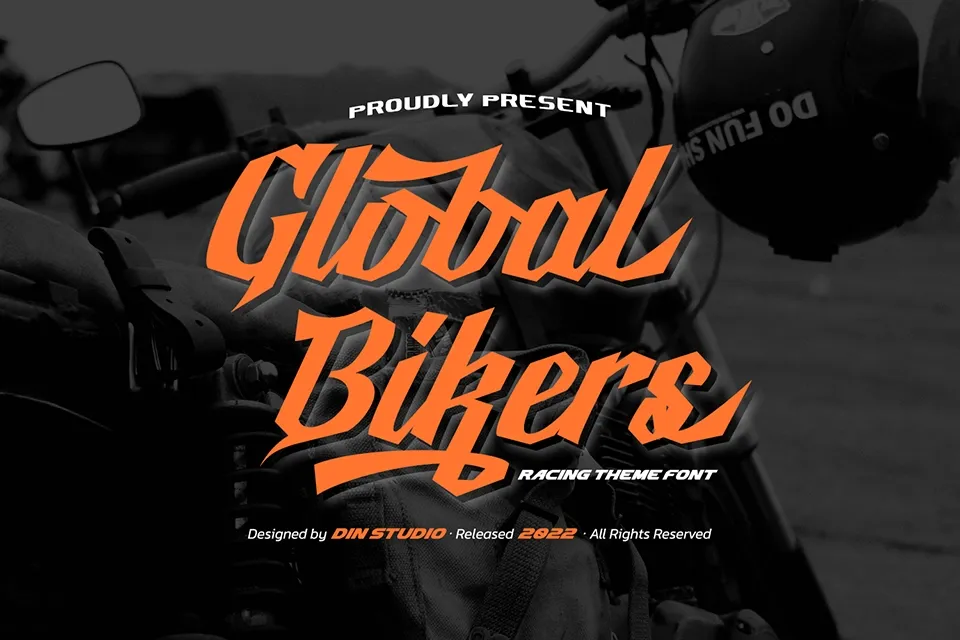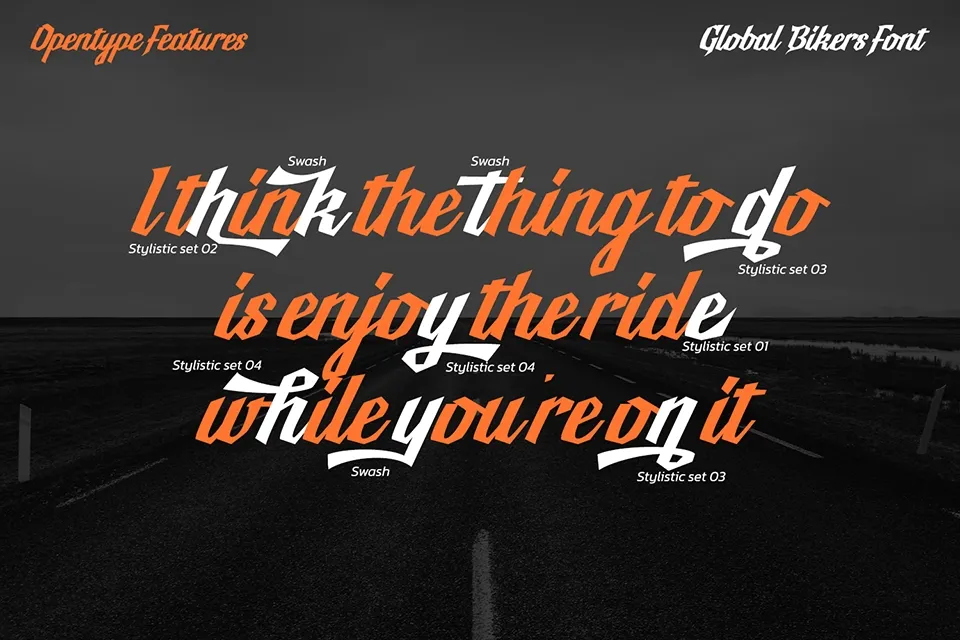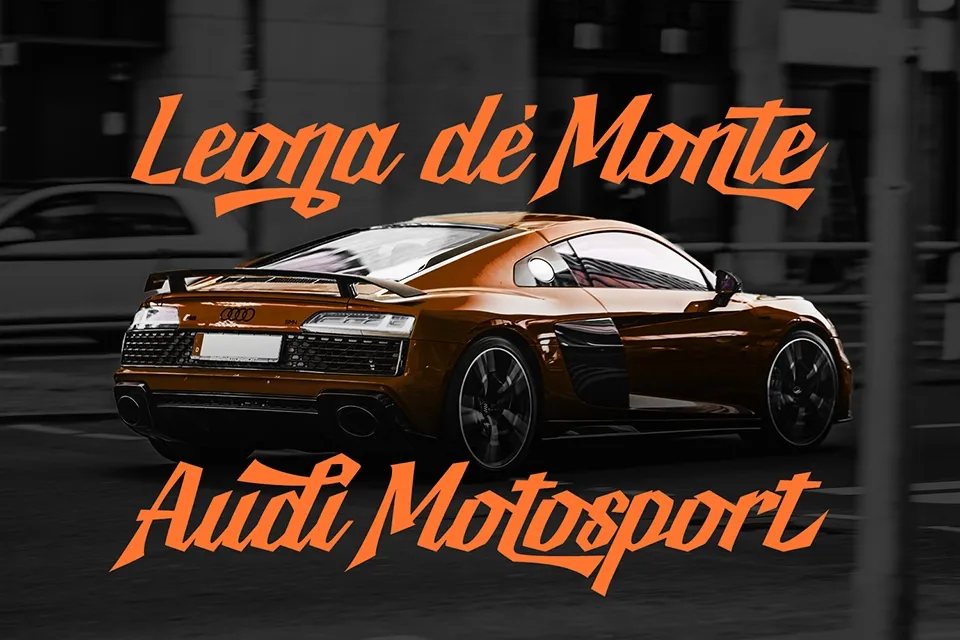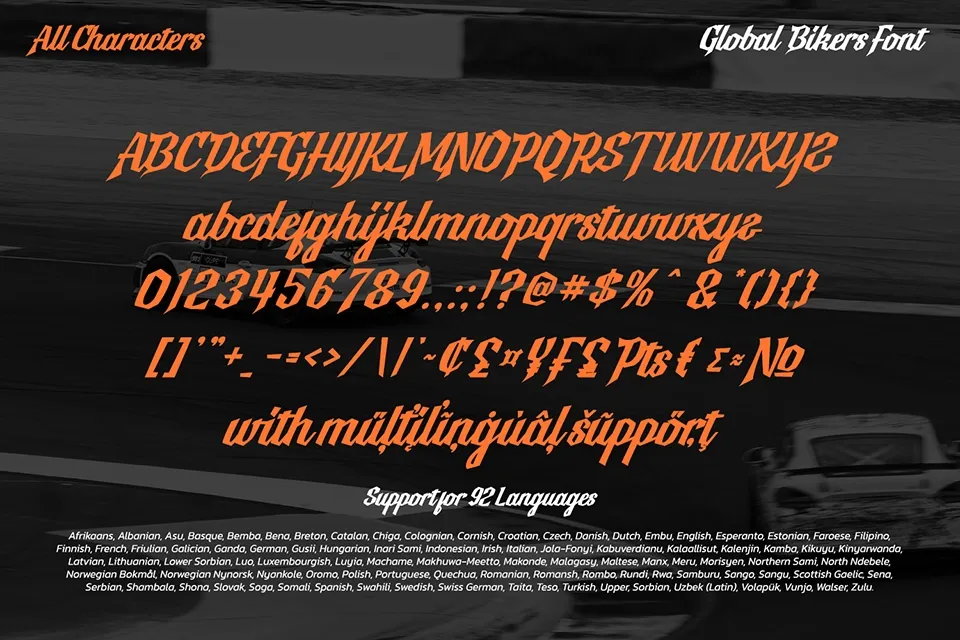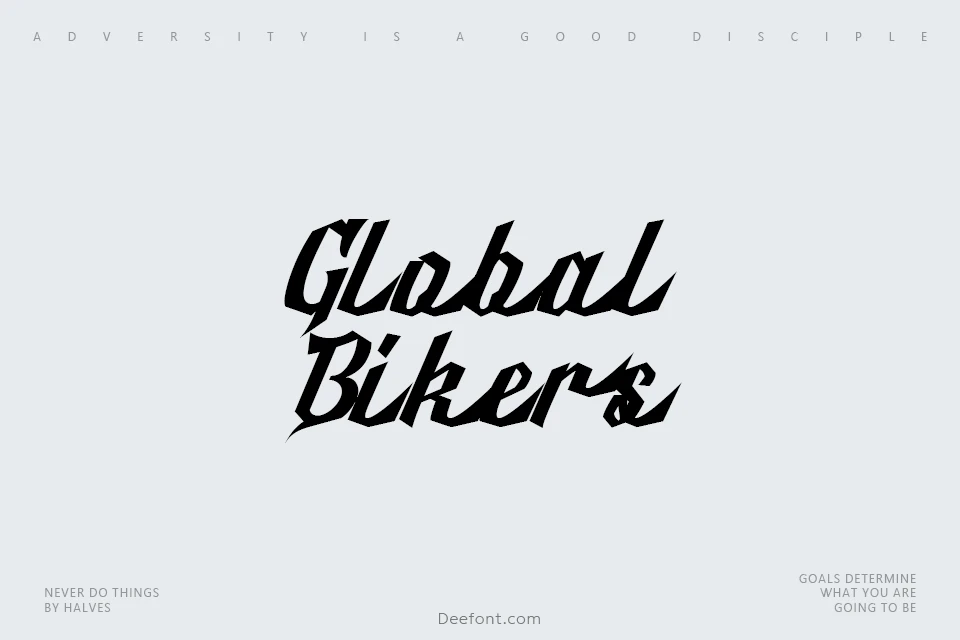
Global Bikers Font
Global Bikers Font, designed by DIN STUDIO, is a bold and dynamic racing-themed typeface released in 2022. It features impactful letterforms with sharp, angular edges and a slight slant, designed to evoke speed and energy associated with motorsports and biker culture. The characters possess an edgy, assertive look with pointed terminals, creating a strong visual presence. This typeface is ideal for eye-catching headlines, logos, event posters, apparel branding, and any design project needing a high-octane, powerful aesthetic inspired by racing or biking themes.